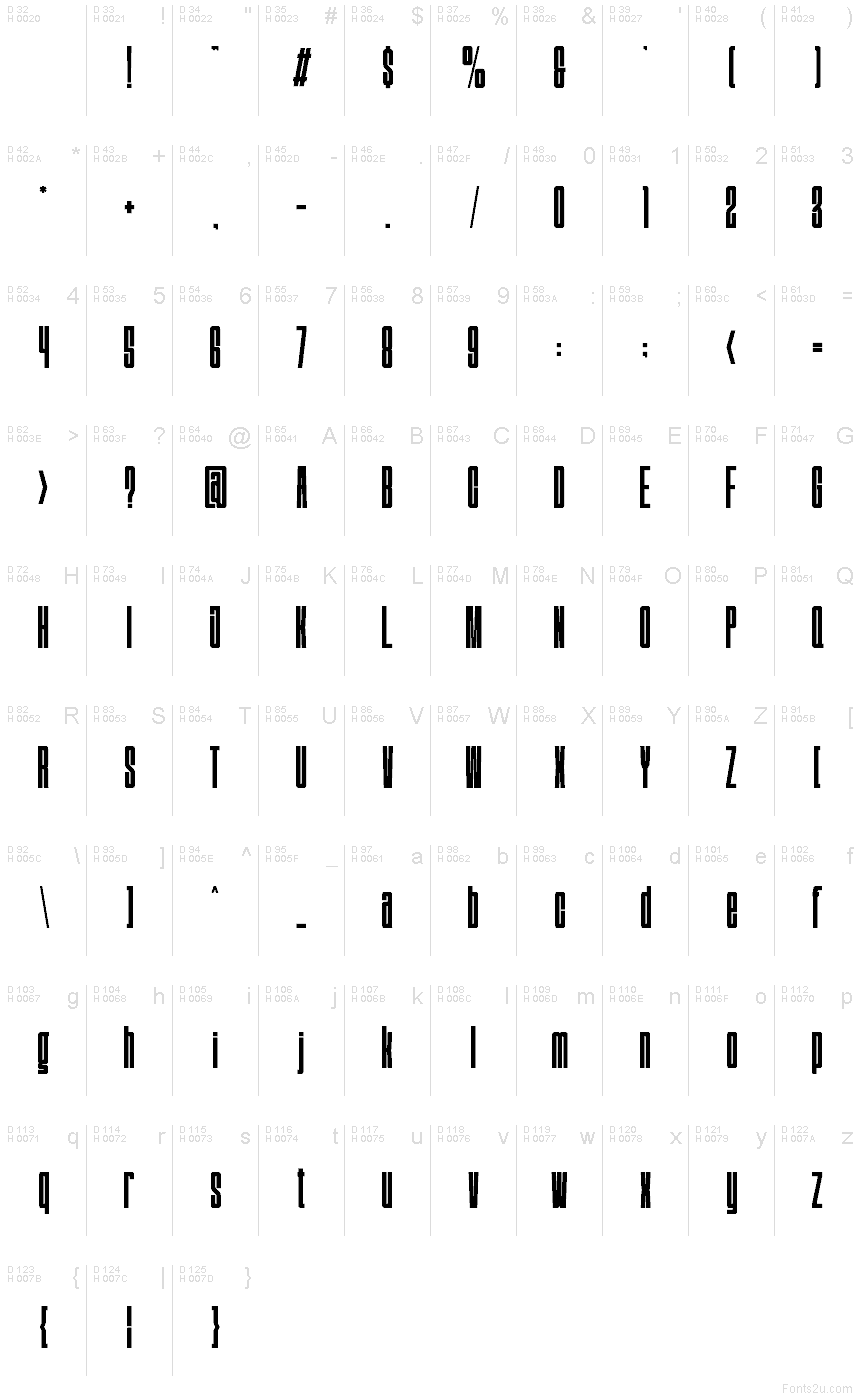
Rostelop
Rostelop font by Ermedia Studio is a free ultra-bold condensed display sans serif font. Built around tight vertical columns and squared, tunnel-like counters, it hits like a stamp—dense, punchy, and unmistakably modern. The chunky rhythm keeps letters locked together, so big words read as graphic blocks while still staying legible at a glance.
Using Rostelop, you’ll get instant impact for posters, esports branding, music covers, bold packaging, event flyers, tech signage, and apparel tags. This free font thrives at oversized scales; add a touch of tracking for breathing room. For copy or captions, pair it with a light geometric sans to balance Rostelop’s weight and keep layouts clean.